First of all, let’s start with the definition of sans-serif fonts. If you are already working in the field, you may already know the differences between serif and sans-serif fonts, but a quick read is a reminder of those. This is how Wikipedia defines sans-serif fonts:
In typography, a sans-serif, sans serif, gothic, san serif or simply sanstypeface is one that does not have the small projecting features called “serifs” at the end of strokes.[1] The term comes from the French word sans, meaning “without” and “serif” from the Dutch word schreef meaning “line”. Sans-serif fonts tend to have less line width variation than serif fonts.
Sans-serif fonts have become more and more popular as years passed. Especially since computers and smartphones have arrived, sans-serif fonts being used more than serif fonts because of the lack of the “small projecting features called serifs” present on serif fonts, which, on a small scale, like on smartphones, they may be lost or appear to big. Sans-serif fonts usually have a modern touch, while some serif fonts give a more vintage feel to designs.
The most popular and most used sans-serif of all time is, by far, Helvetica, created and released in 1957 by Max Miedinger, with an input from Eduard Hoffmann. This font has been used in any type of design you may thing, from logos (Cassina S.p.A.) to signage (Washington Metro) or operating systems, Apple using the font for iOS starting with 2015.
But the Helvetica typeface is a premium font, and what we are doing here is listing a couple of free sans-serif fonts that you can use in your designs, without having to buy it. The following fonts can be used in anything from logos, posters, business cards, brochures or any projects you may have. This is the first part of the collection of free sans-serif fonts, picked from fontsquirrel.com.
Free Sans-Serif Fonts
ABEEZEE
This font was designed by Anja Meiners and the available weights you can download for free are: Regular and Italic.
The designer’s definition for this font is:
ABeeZee is a children’s learning font. Open, friendly and simple, the definite shapes support the process of learning to read and write. The italic carefully reminds young readers of fluent writing movements and inspires them to create their own unique handwriting.
ALLER
This font was designed by Dalton Maag Ltd and it’s available to download for free in the following weights: Light, Light Italic, Regular, Italic, Bold, Bold Italic and Display, which is a bold font with a combination between uppercase and lowercase letters.
AMARANTH
This font was designed by Gesine Todt and it’s available to download for free in the following weights: Regular, Italic, Bold, Bold Italic.
ANIVERS
This font was designed by Exljbris and it’s available to download for free in Regular weight. You can buy Bold, Italic and Small Caps weights from fontspring.
The designer describes the font like this:
Anivers is robust and rigid, forgiving, flexible and elegant … and also suitable for a broad use: from a stationery to a poster headline. From an intro in a magazine to a base for a logo.
ARIMO
This font was designed by Ascender Fonts and it’s available for free download in the following weights: Regular, Italic, Bold and Bold Italic.
A short description of the font, written by the creators of the font:
Arimo was designed by Steve Matteson as an innovative, refreshing sans serif design that is metrically compatible with Arial. Arimo offers improved on-screen readability characteristics and the pan-European WGL character set and solves the needs of developers looking for width-compatible fonts to address document portability across platforms.
CHIVO
This font was designed by Omnibus Type and it’s available to download for free in the following weights: Light, Light Italic, Regular, Italic, Bold, Bold Italic, Black and Black Italic.
The creators of this font describe it like:
Chivo is a grotesque typeface. The strength of Chivo makes it ideal for highlights and headlines. Chivo Regular’s elegance is ideal for combining with Chivo Black’s strength and for continuous reading settings.
CLEAR SANS
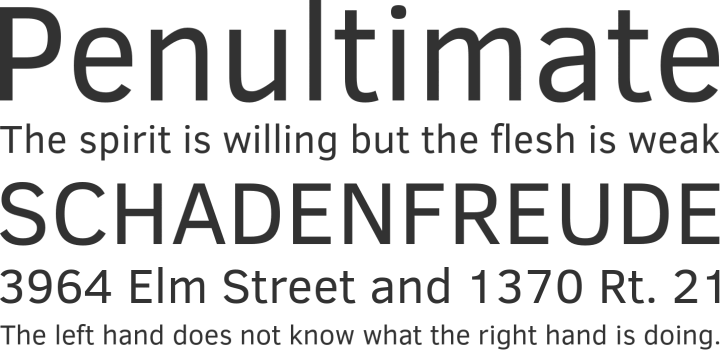
This font was designed by Intel and it’s available for free download in the following weights: Thin, Light, Regular, Italic, Medium, Medium Italic, Bold and Bold Italic.
Font’s description according to its creators:
Clear Sans is a versatile OpenType font for screen, print, and Web. We designed Clear Sans with on-screen legibility and glanceability in mind. It strikes a balance between contemporary, professional, and stylish expression and thoroughly functional purpose. It has a sophisticated and elegant personality at all sizes, and its thoughtful design becomes even more evident at the thin weight.
Clear Sans has minimized, unambiguous characters and slightly narrow proportions, making it ideal for UI design. Its strong, recognizable forms avoid distracting ambiguity, making Clear Sans comfortable for reading short UI labels and long passages in both screen and print.
ECONOMICA
This font was designed by Vicente Lamónaca and it’s available to download for free in the following weights: Regular, Italic, Bold and Bold Italic.
ENIGMATIC
This font was designed by Objets Dart and it’s available for free download in the following weights: Regular, Italic and Bold.